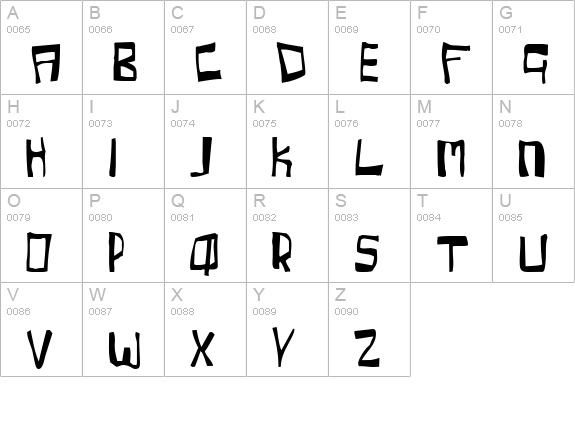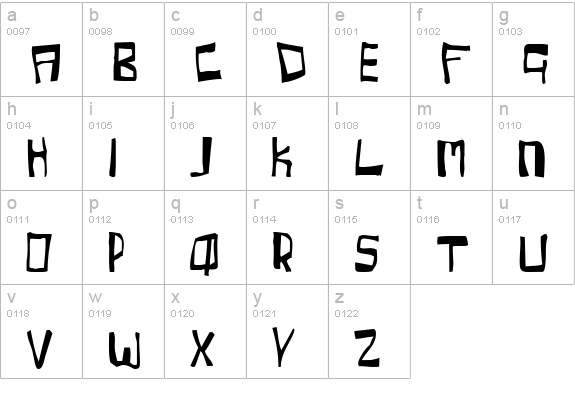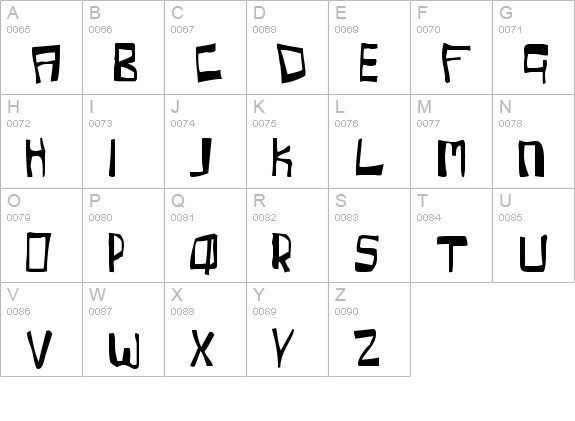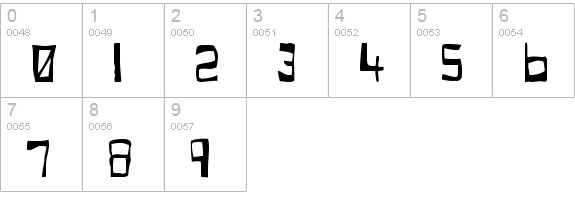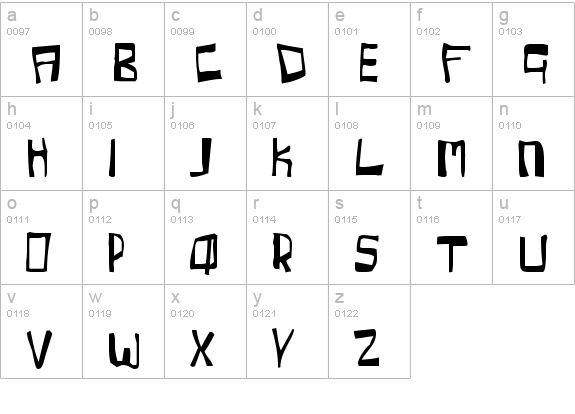
Introducing the Cherry Coke font - a playful and vibrant typeface that exudes a sense of fun and energy. With its bold strokes and whimsical curves, this font is perfect for adding a touch of excitement to your designs. Whether you're working on posters, banners, or social media graphics, Cherry Coke will make your text pop and stand out. The best part? Cherry Coke is completely free to download at FontsMarket.com. So why wait? Add a splash of color and personality to your projects with this eye-catching font today!